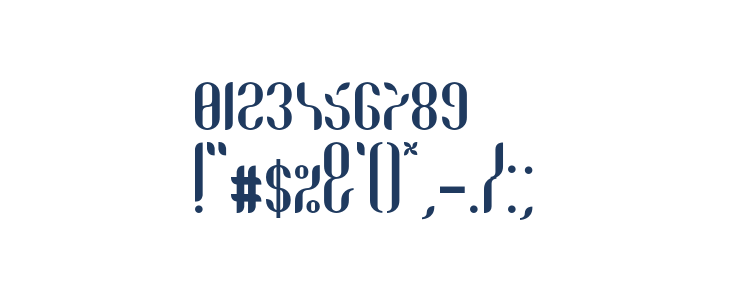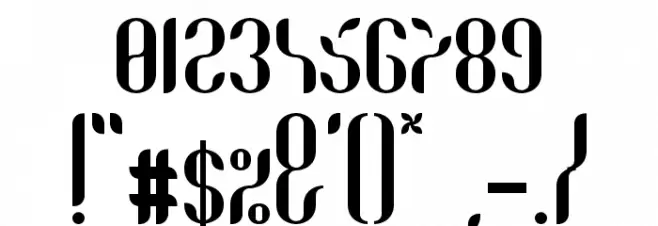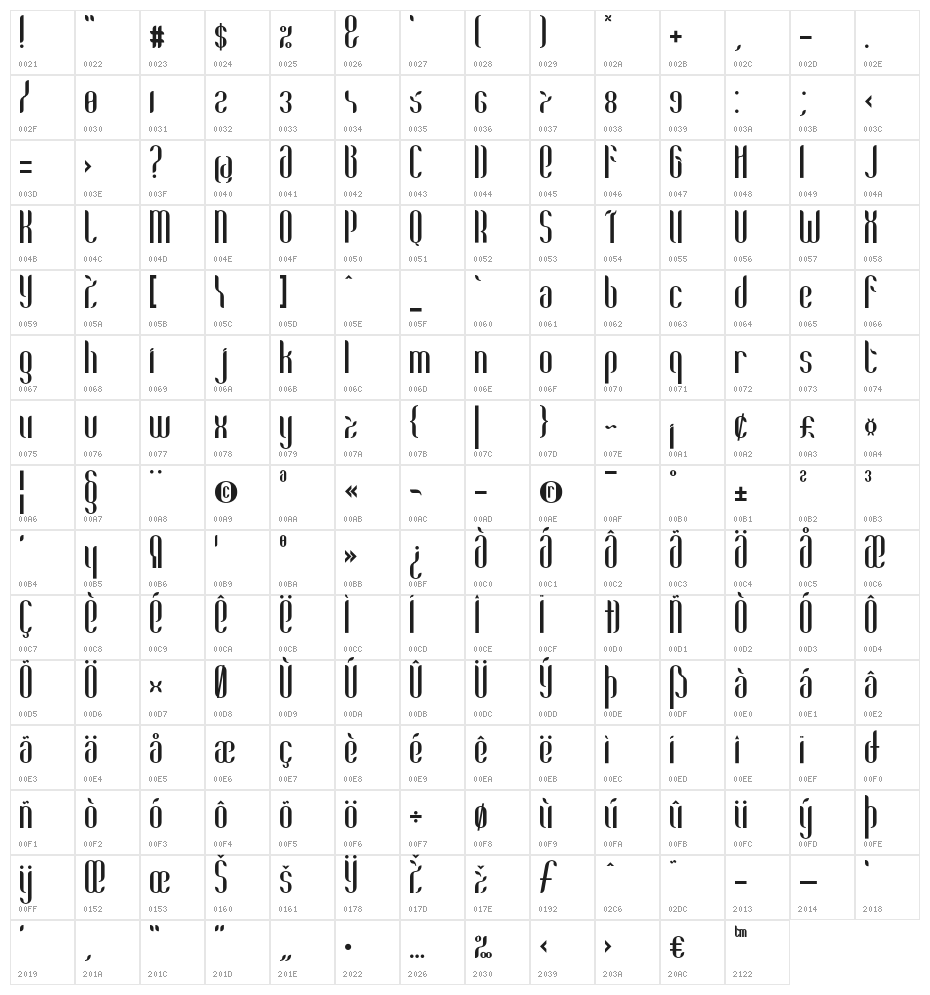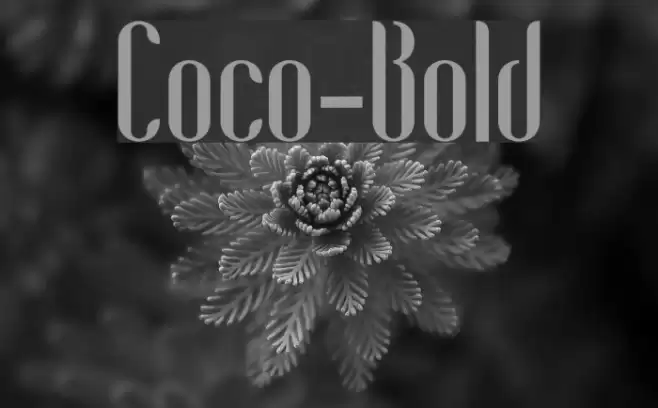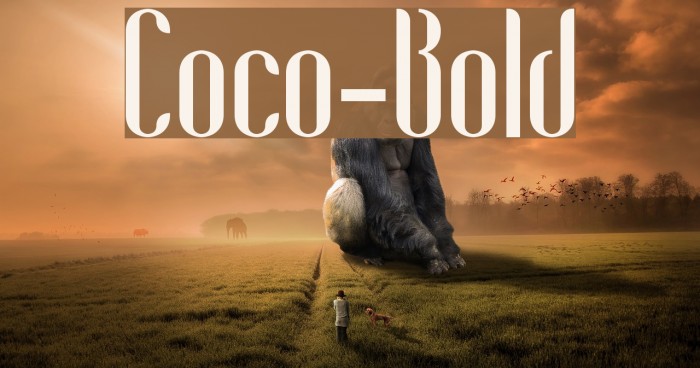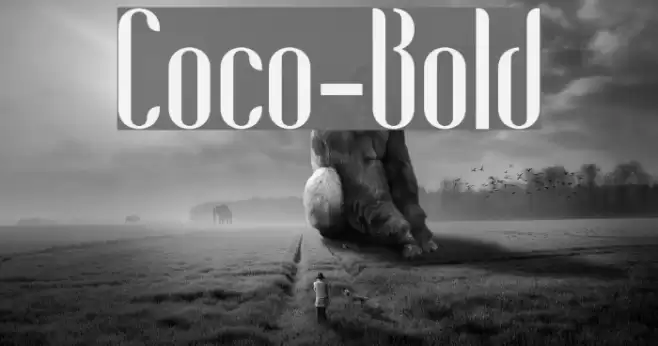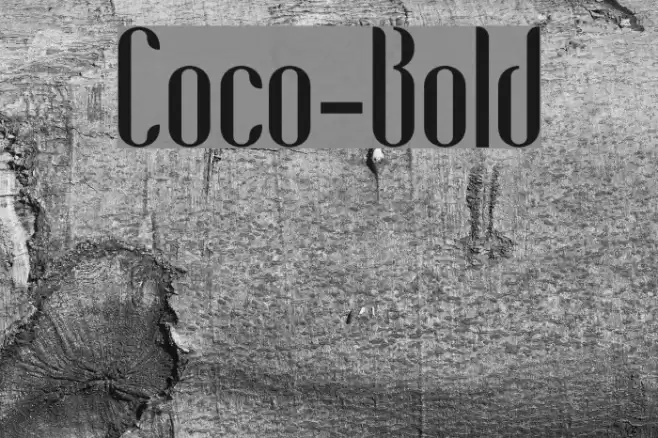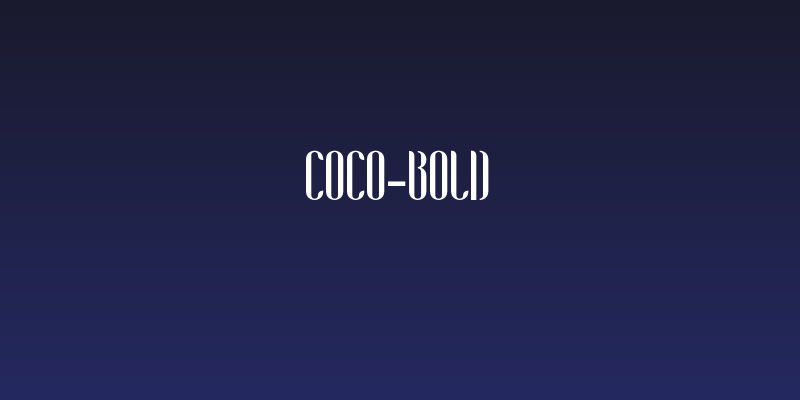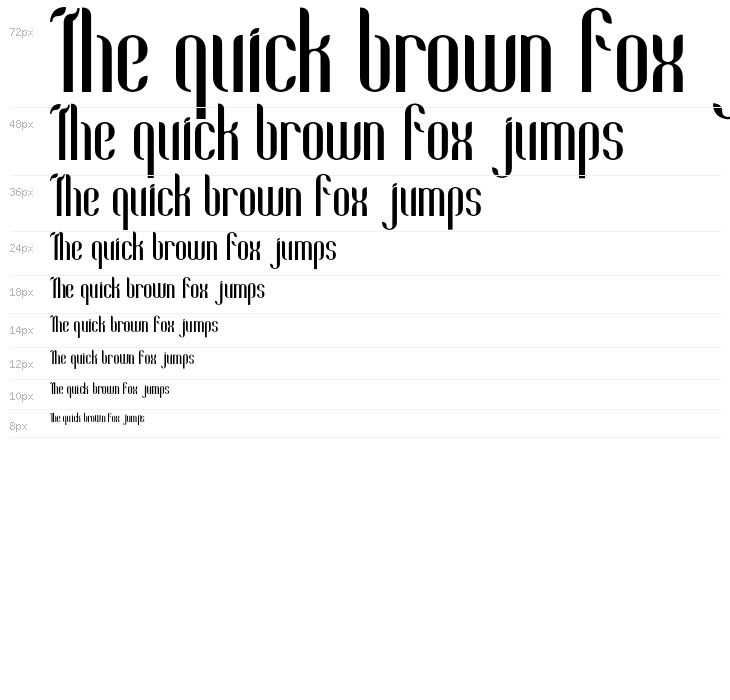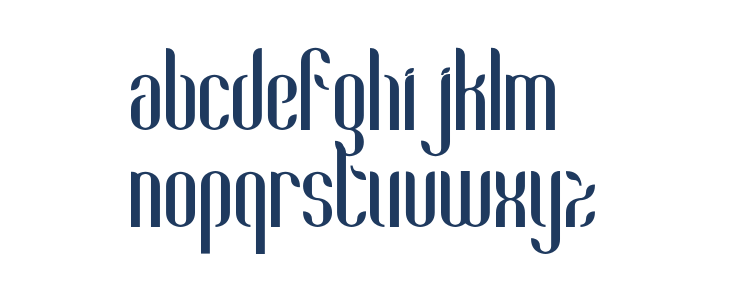
Coco-Bold Font
Coco-Bold Description
This font features a bold, modern design with a unique blend of geometric and organic shapes. The characters are tall and narrow, with a high contrast between thick and thin strokes, giving it a striking appearance. The uppercase letters are particularly elongated, creating a sense of elegance and sophistication. The lowercase letters maintain the same stylistic elements, ensuring consistency throughout the typeface. The numbers and special characters are designed to match the overall aesthetic, making it versatile for various uses. The font's distinct style makes it ideal for projects that require a contemporary and eye-catching look.